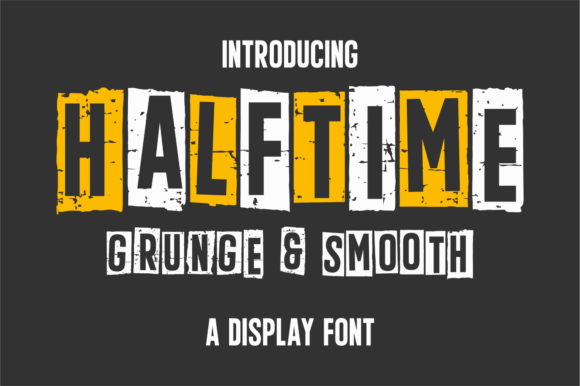
Introducing Halftime Font, the ultimate solution for captivating and impactful designs! Created by SVG Cuttables, this bold and powerful display font is specifically designed to elevate your projects to new heights. With its strong, blocky letterforms boasting sharp edges and corners, Halftime Font guarantees to leave a lasting impression.
Are you tired of ordinary and mundane fonts that fail to grab attention? Say goodbye to mediocrity and hello to Halftime Font! Its tall and narrow design is tailor-made for creating eye-catching headlines, titles, and logos that demand to be noticed. Whether you're designing a poster, flyer, or social media graphic, Halftime Font will ensure your message stands out from the crowd.
But Halftime Font is not just about aesthetics; it's about evoking emotions and making a statement. With its modern and industrial vibe, this font brings a strong and masculine touch to any project. Imagine the impact of using Halftime Font for a sports event poster, a bold fashion brand logo, or a cutting-edge technology website. Your audience won't be able to resist its magnetic charm.
But don't be fooled by its boldness – Halftime Font is also incredibly versatile. It effortlessly adapts to various design styles, effortlessly blending with both minimalist and intricate layouts. Whether you're aiming for a sleek and contemporary look or a rugged and edgy vibe, Halftime Font has got you covered.
What sets Halftime Font apart from the rest is its ability to connect with your audience on a deeper level. By using this font, you're not just purchasing a typeface; you're investing in a tool that communicates your brand's personality and values. Halftime Font speaks volumes about strength, determination, and ambition – qualities that resonate with consumers seeking authenticity and power.